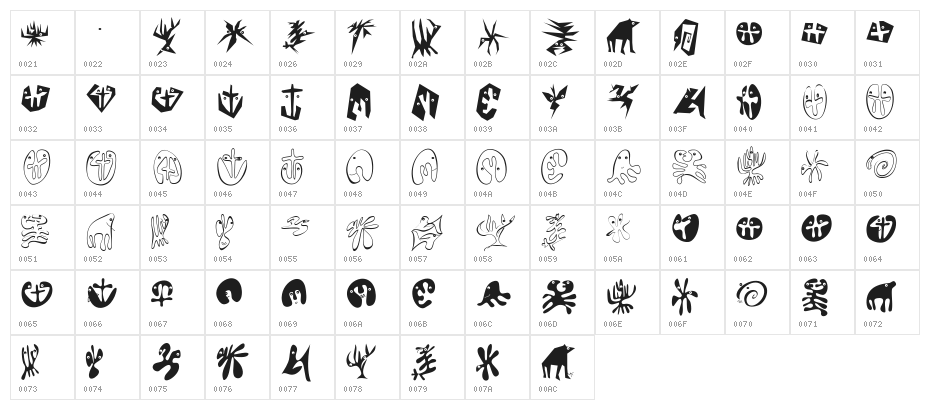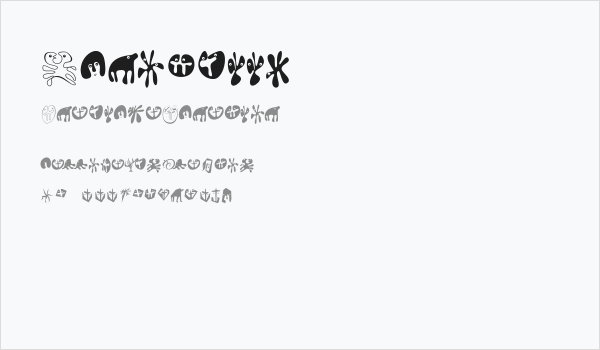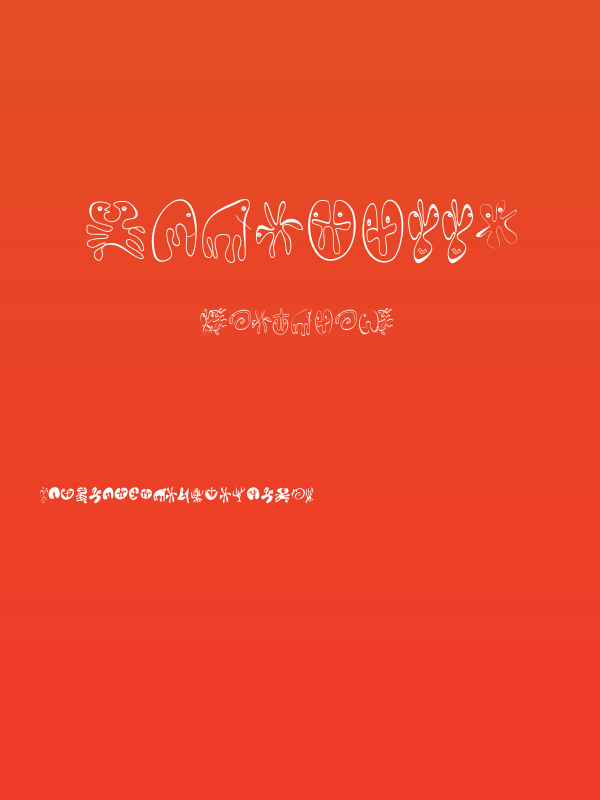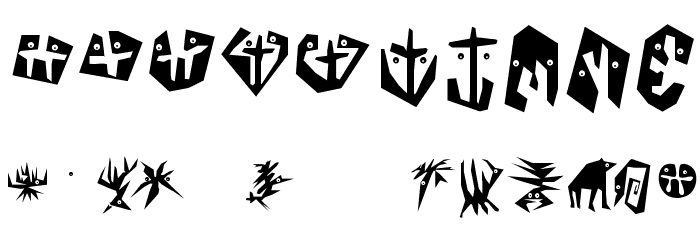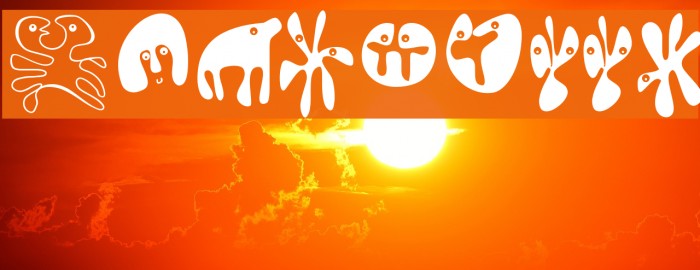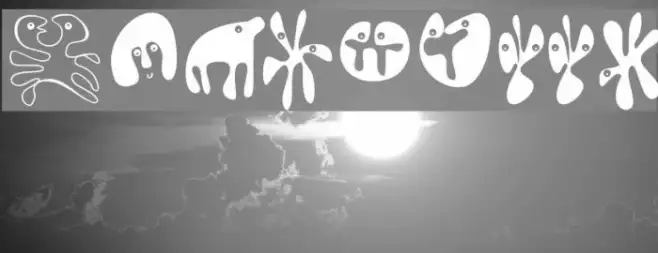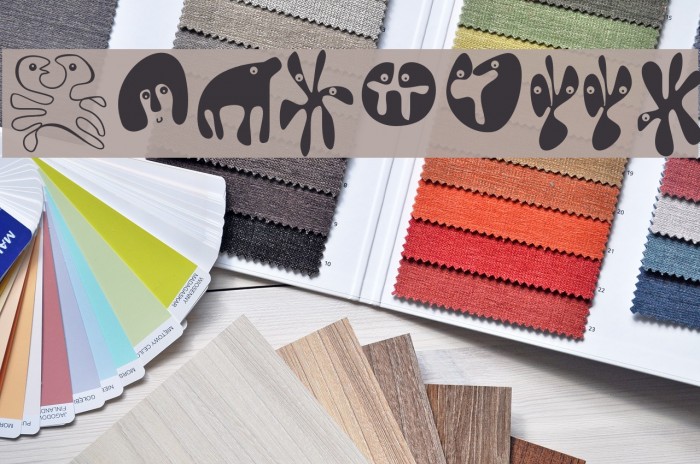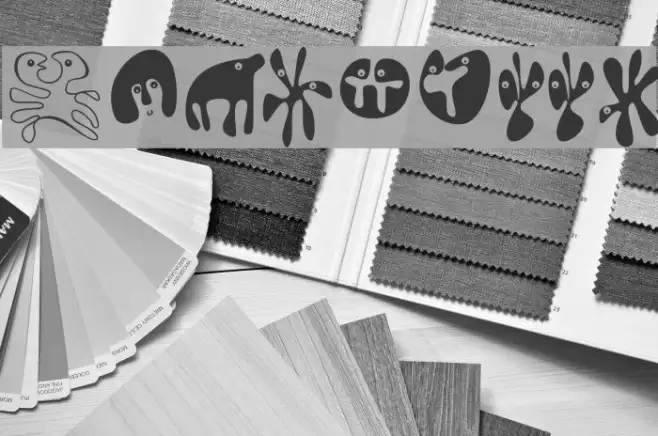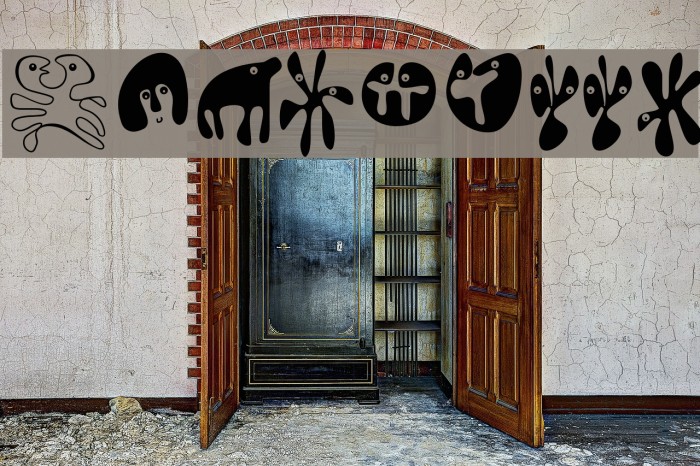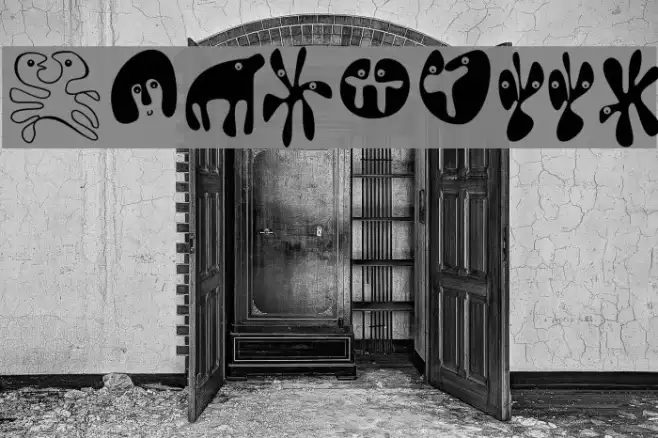
Mirobattz Font
Mirobattz Description
This font features a highly decorative and abstract design, with each character resembling a unique, artistic symbol. The letters are crafted with a playful and imaginative style, incorporating elements that resemble organic shapes and creatures. The characters are enclosed in irregular, rounded forms, giving them a whimsical and almost tribal appearance. This font is not meant for readability but rather for artistic expression, making it ideal for projects that require a distinctive and eye-catching aesthetic. The overall look is bold and expressive, with a strong visual impact.
| Use Case | Logos, Artistic projects, Album covers |
| Proposed Projects | Ideal for artistic projects, unique branding, album covers, or any creative work that requires a standout, decorative typeface. |